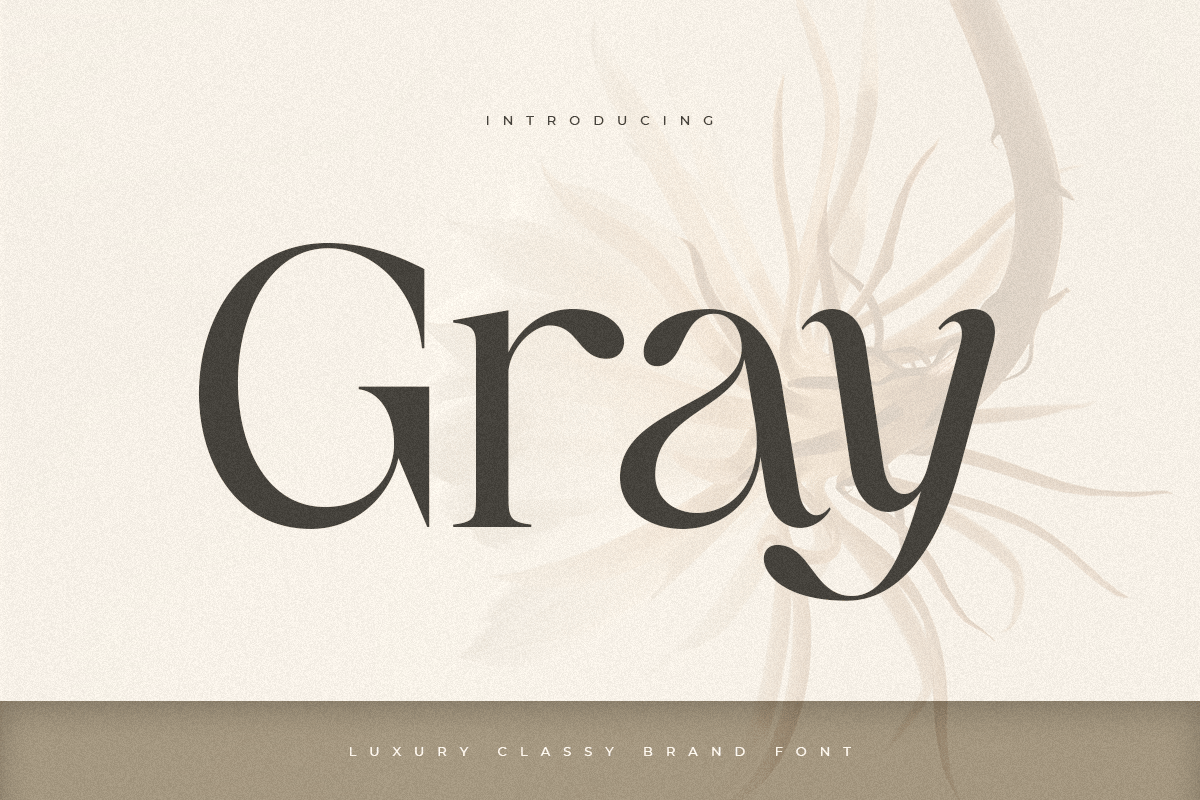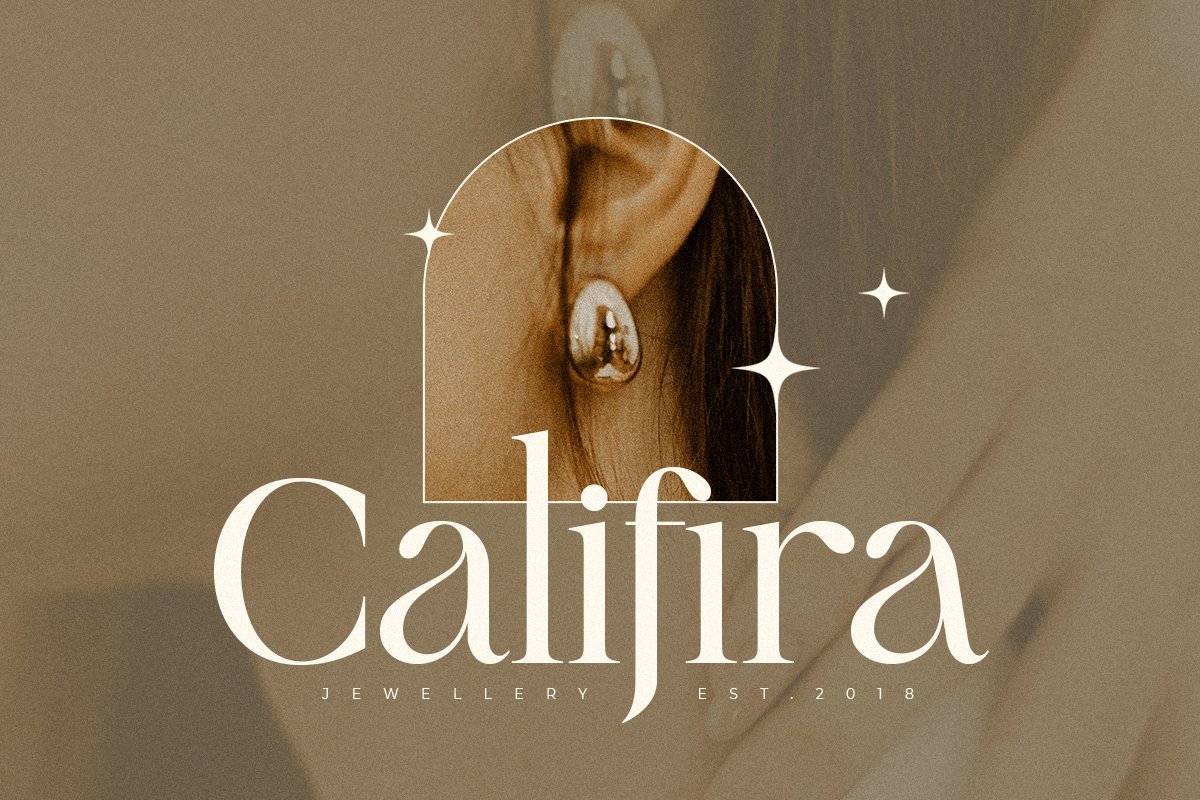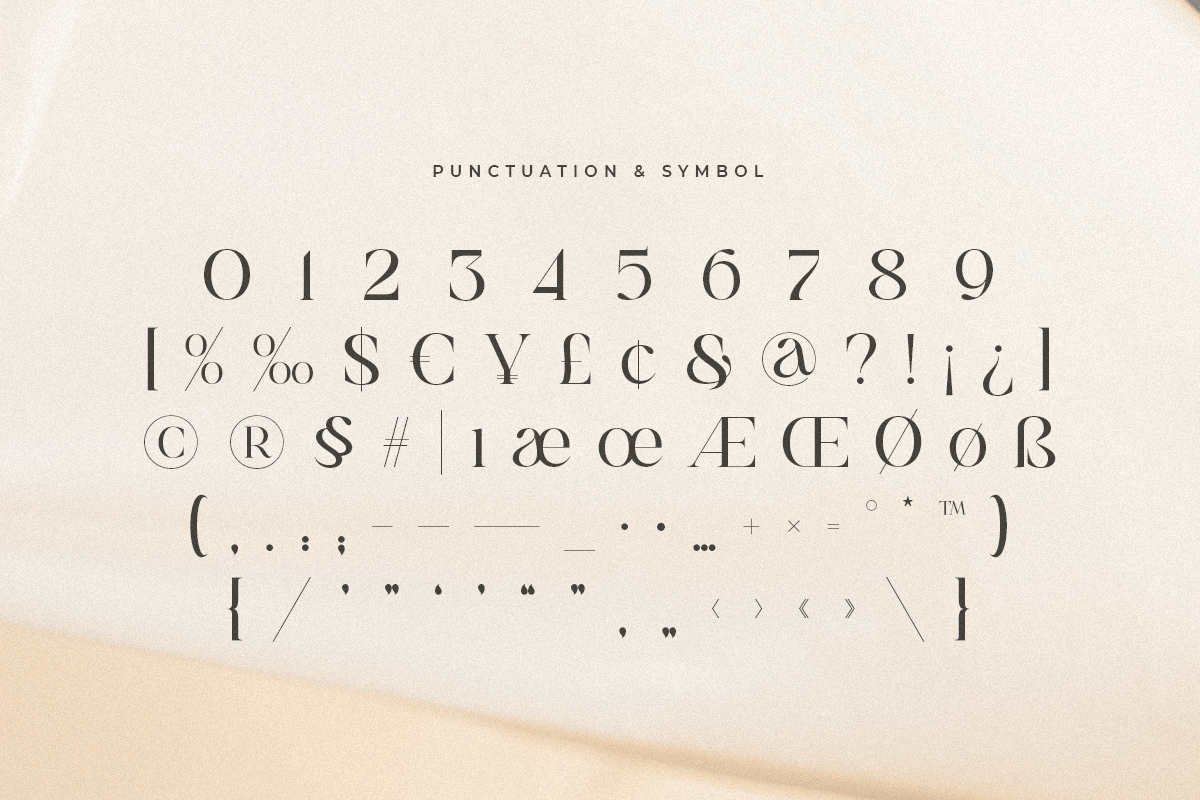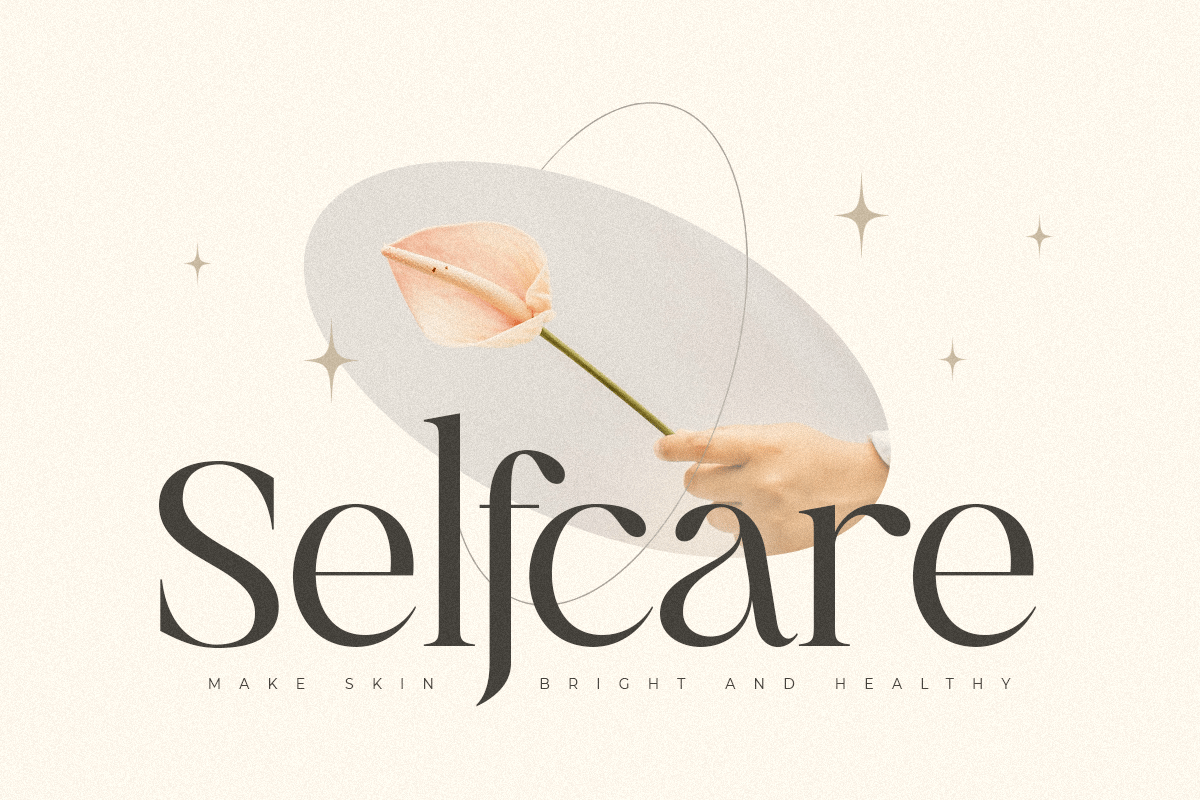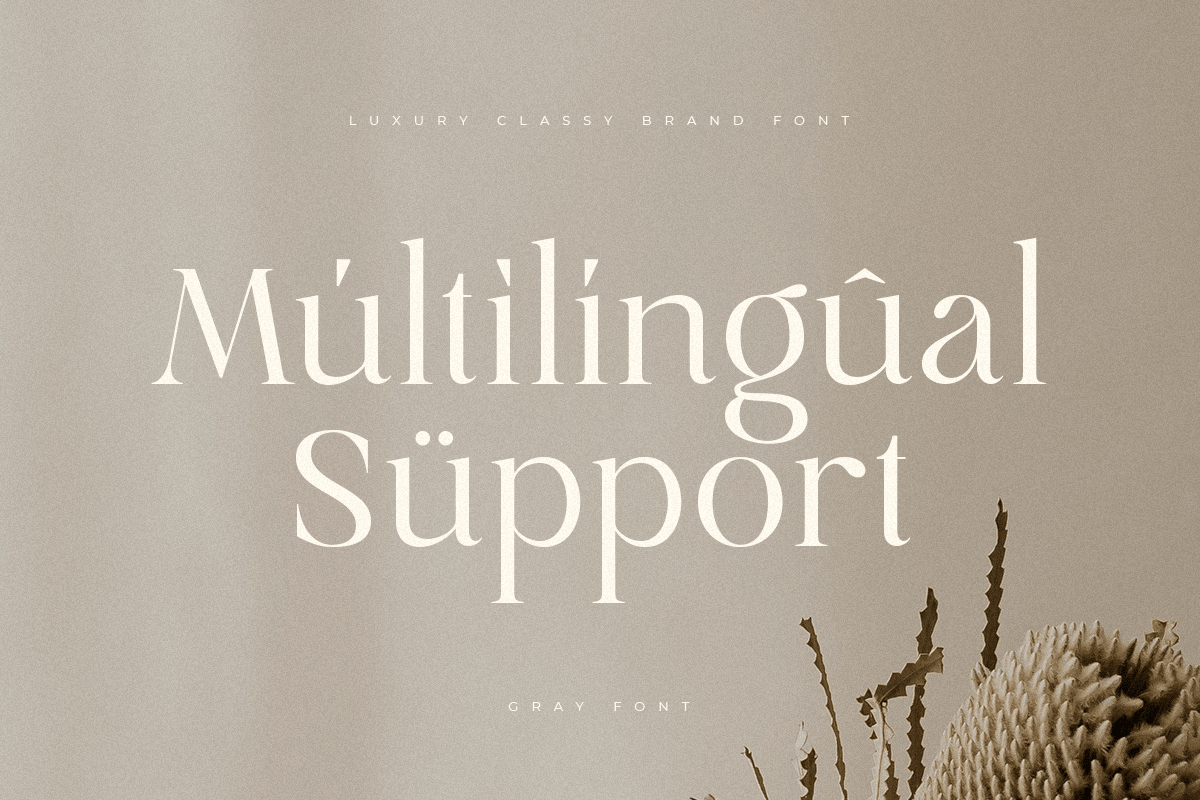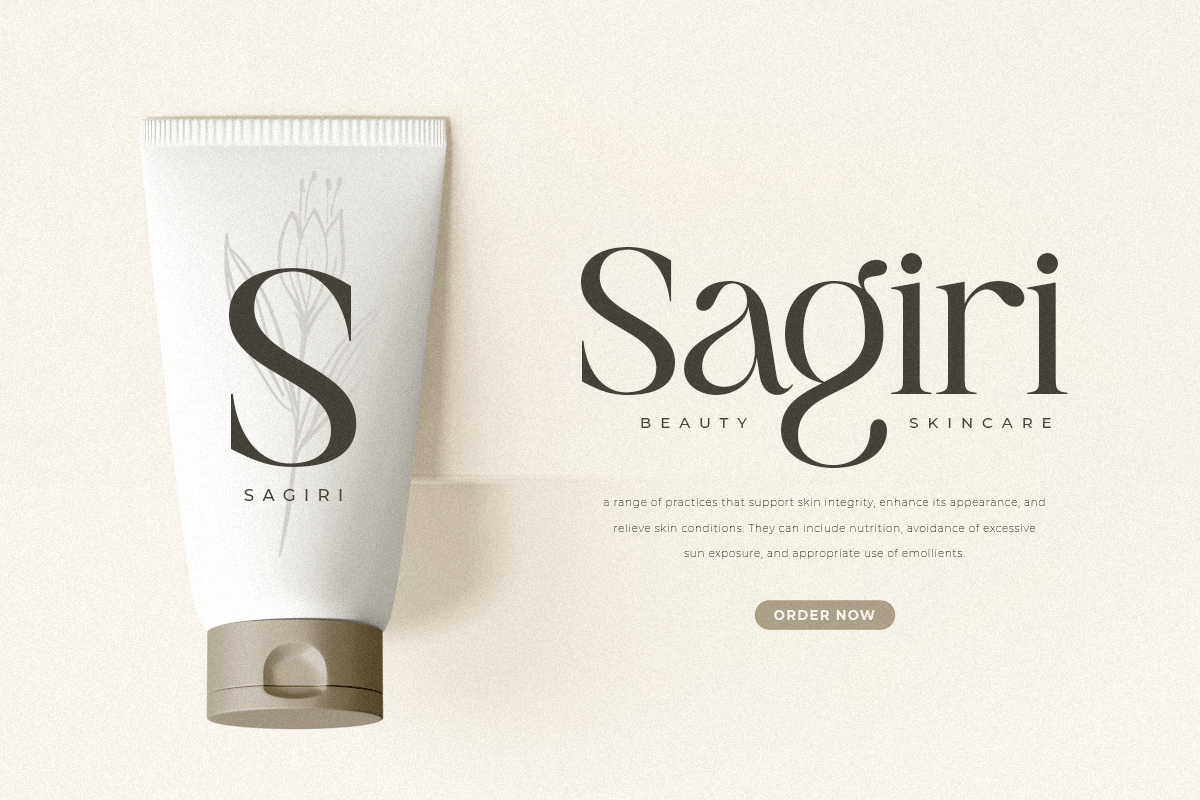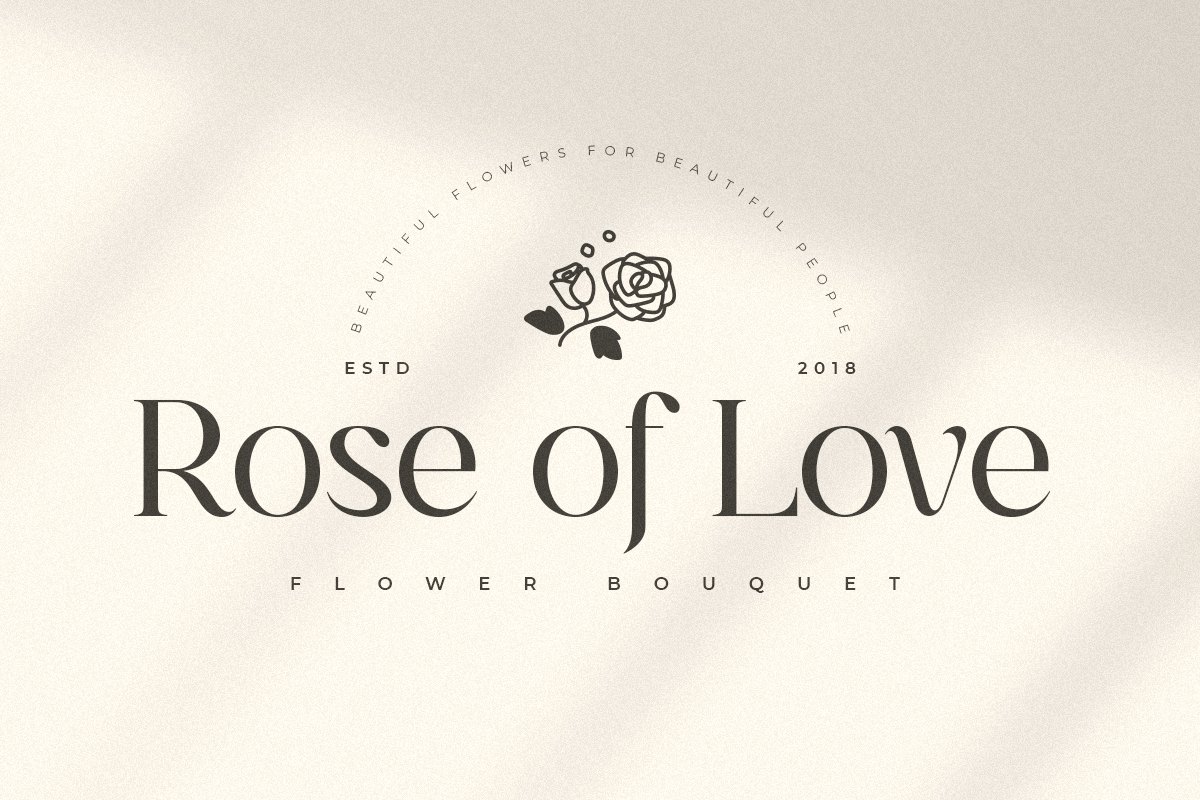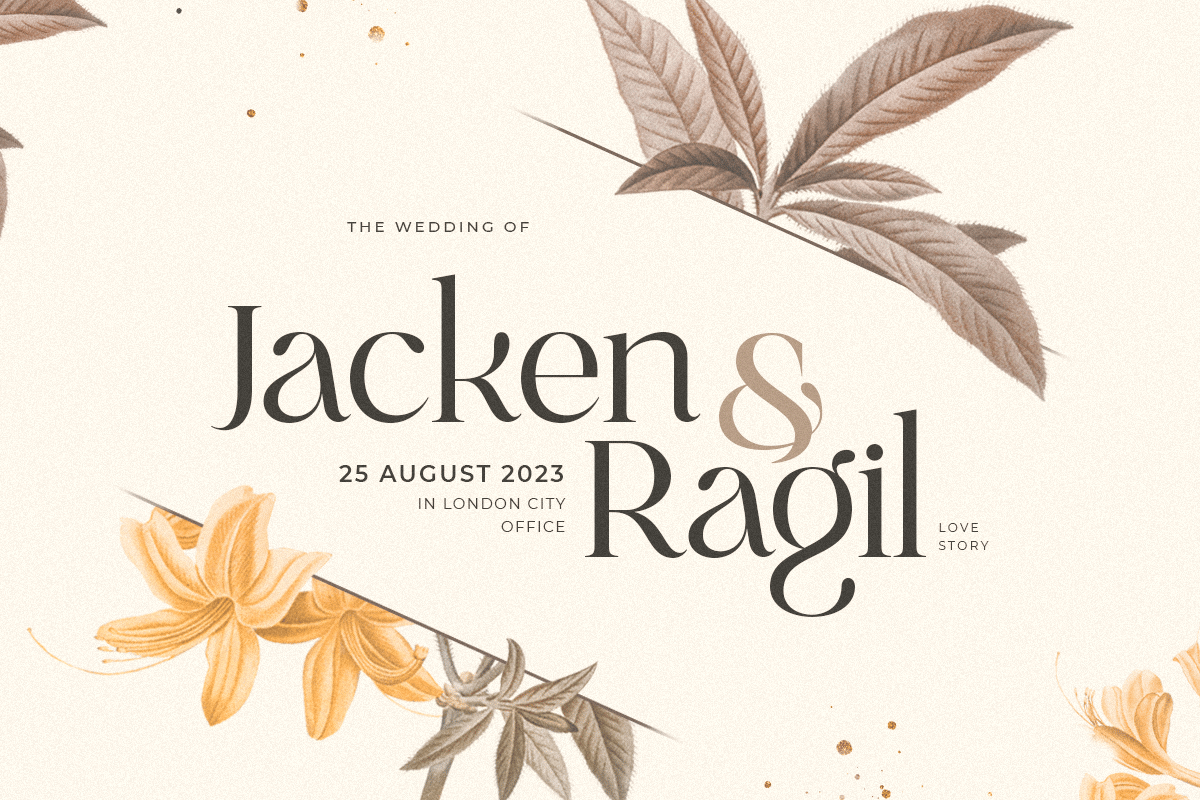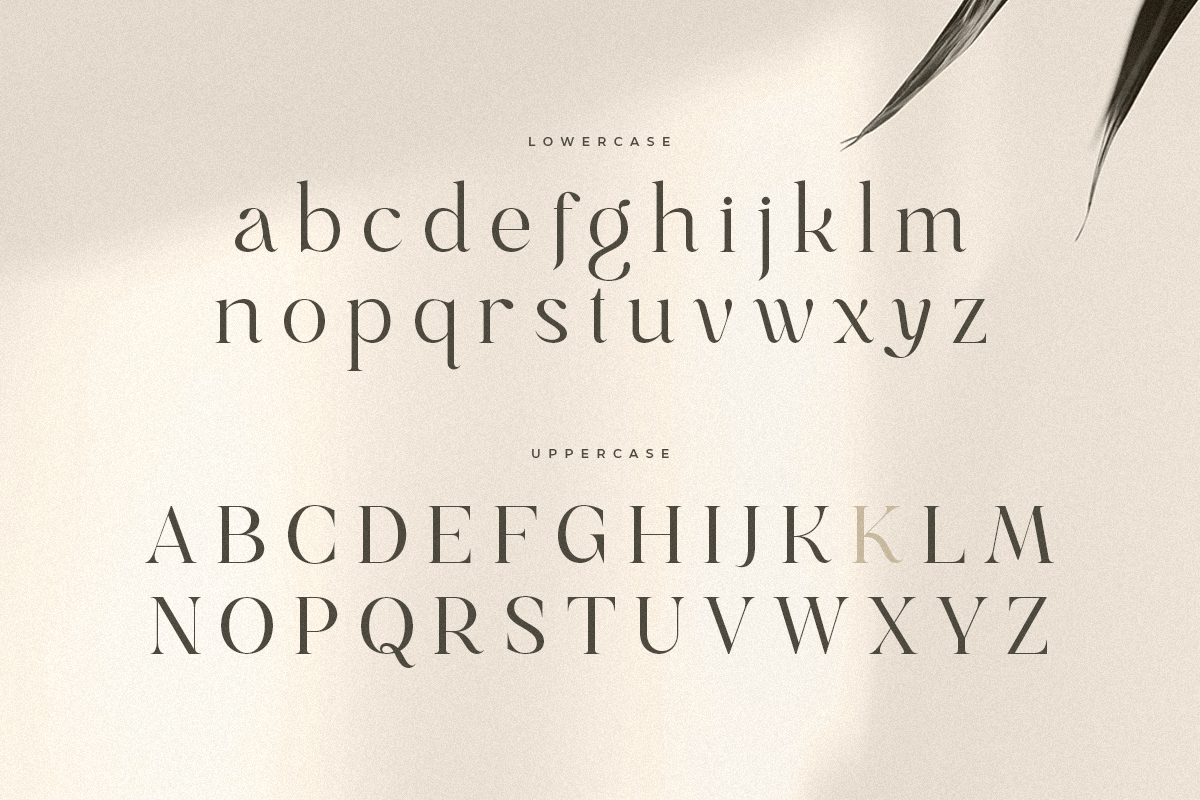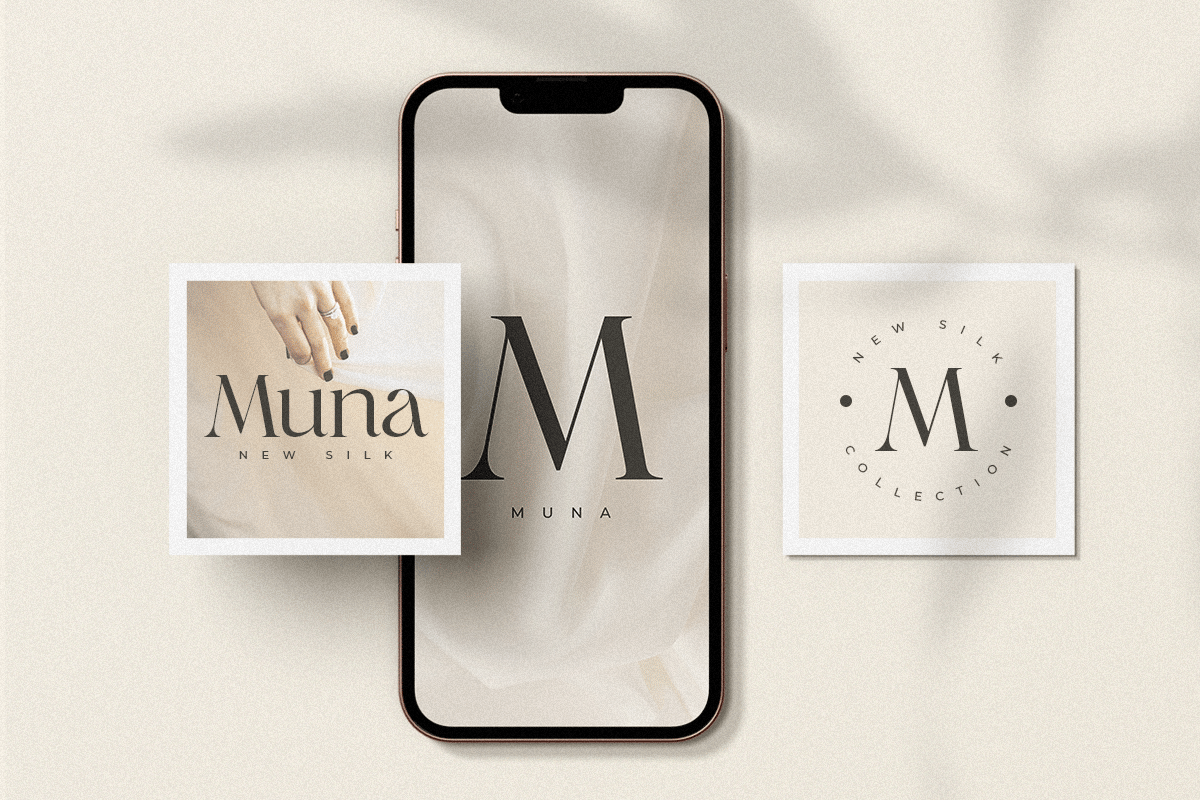
Gray – Luxury Classy Brand Font
A Modern Classy Luxury Font that we created special for Luxury and Fashion branding needs, with extra characters alternate in unique shape will be ready to add value of your brand. It so nice to leverage designer or product owner that need solutions to make their design look more classy and modern. And specially for this font, We prepared any alternate characters to help you create unlimited variations for your creative needs.
Gray Modern Classy Luxury Font ready with:
- Any options to get creative variations (combination of Any Alternates)
- Preview as a inspirations that you can do with Gray font
- Ready with Lowercase and Uppercase characters